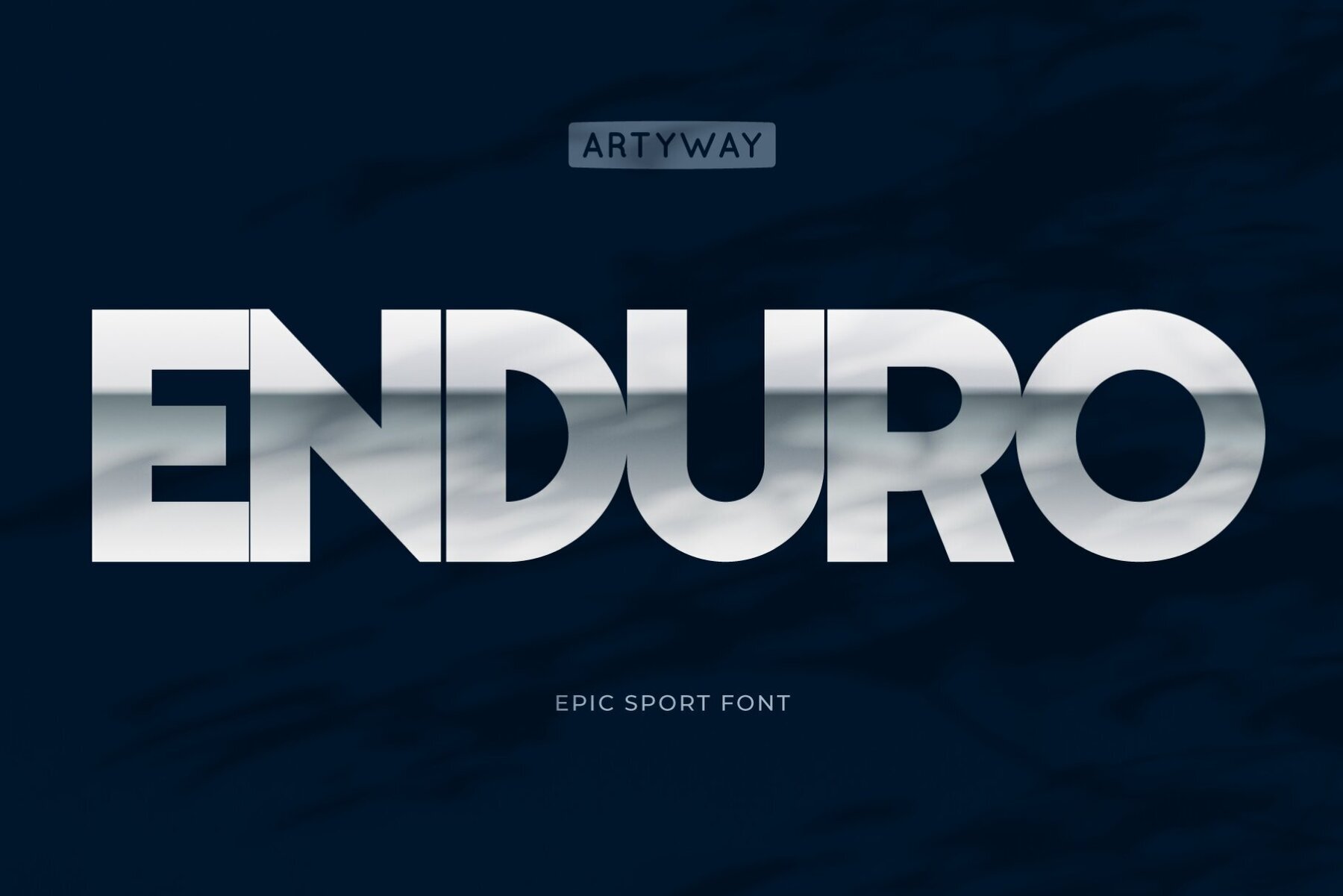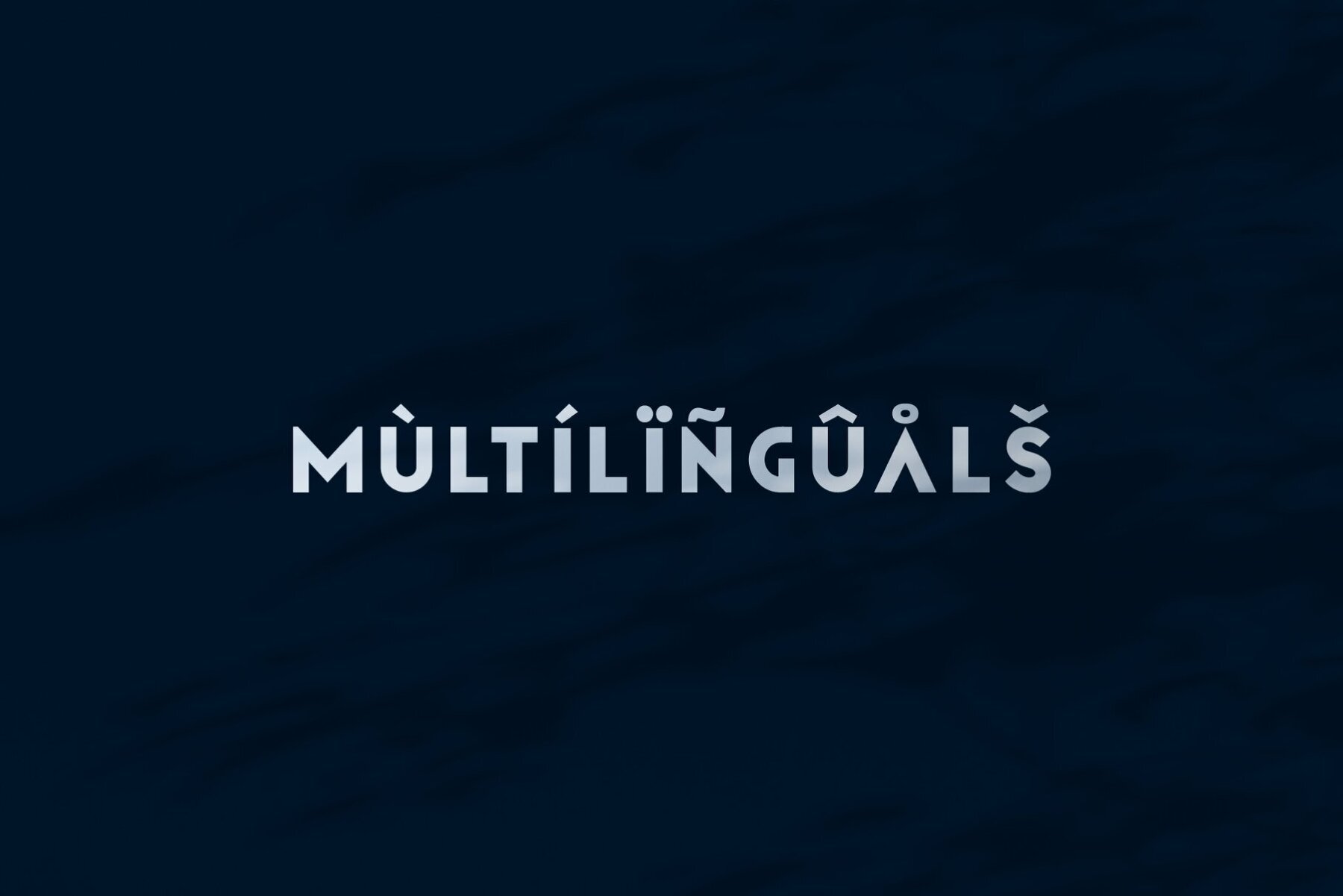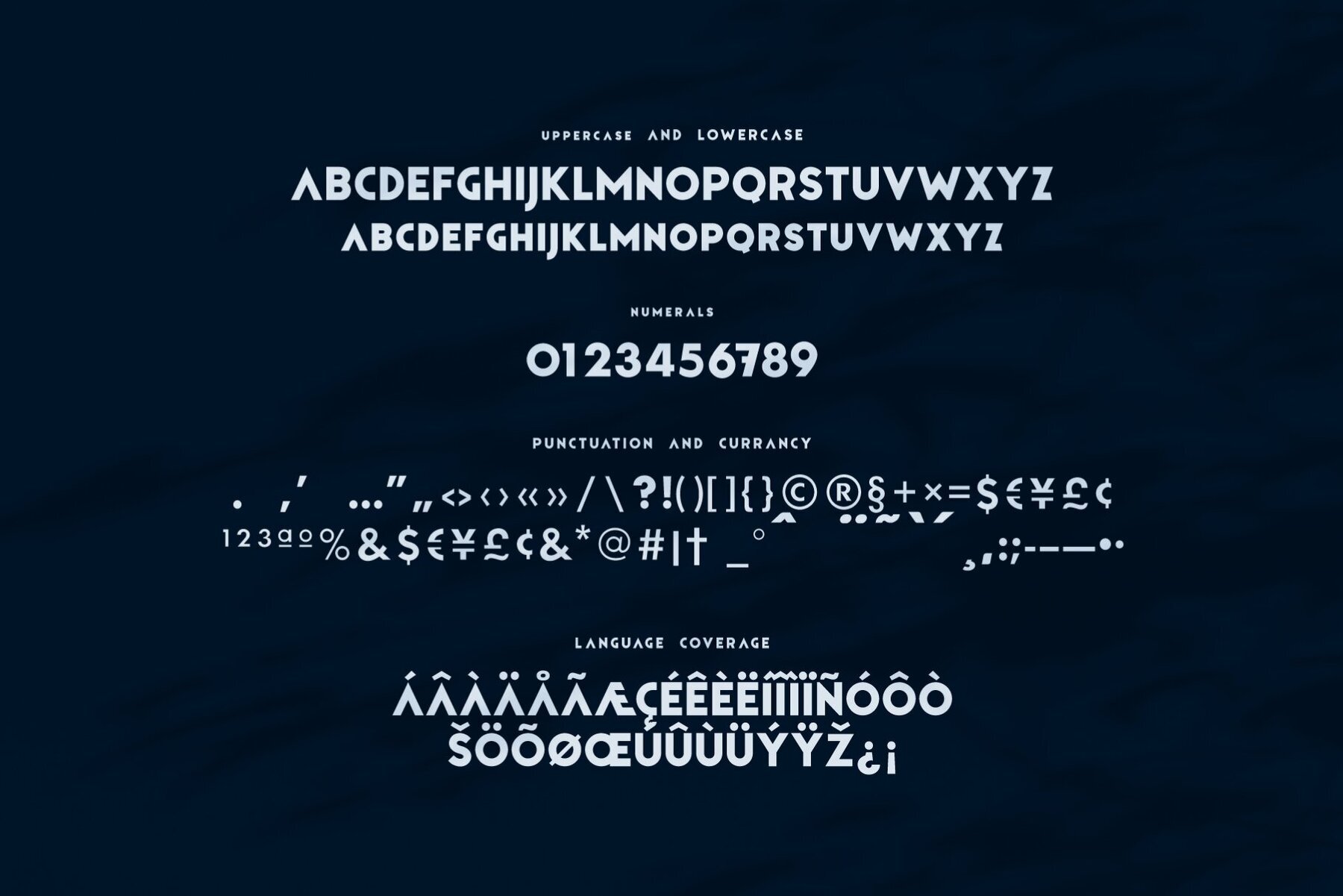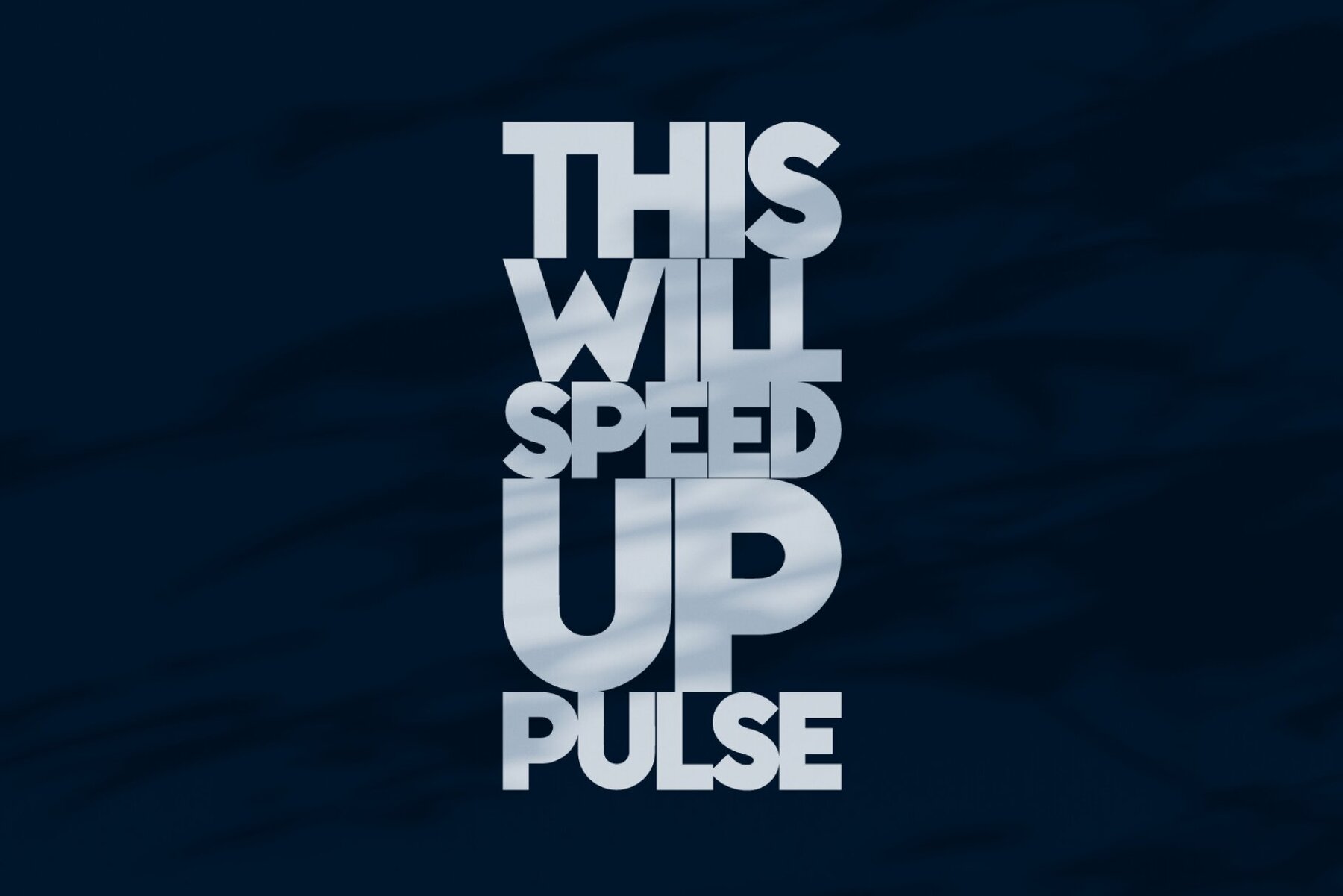
Enduro Font
Enduro
Enduro Font is a strong, bold typeface that excels in delivering powerful messages with minimal space. Perfect for impactful headlines, posters, and branding projects that require both clarity and intensity. Offering a clean and solid appearance that ensures your text stands out. Ideal for designers looking to create compelling visuals in editorial design, advertising, or digital media where space efficiency and readability are crucial. What's included: